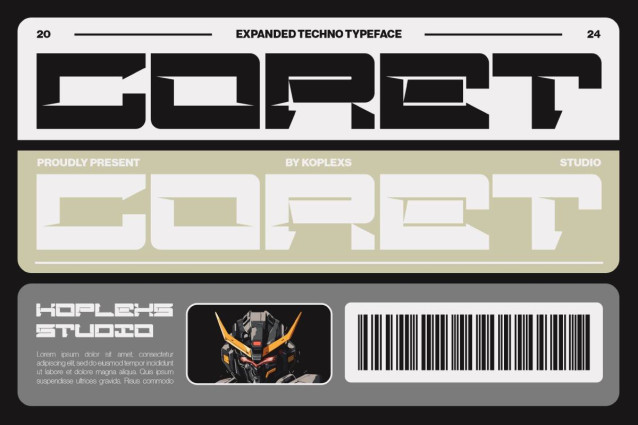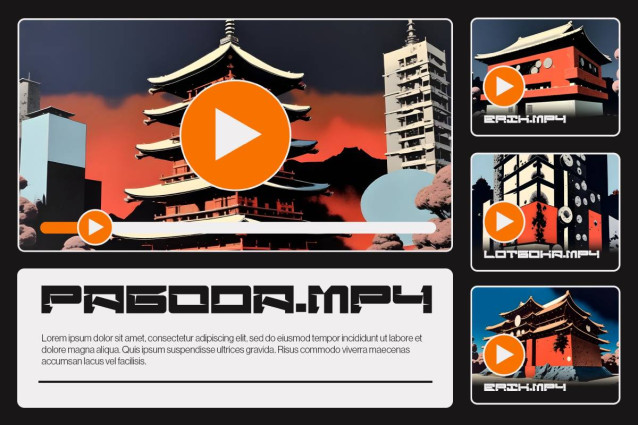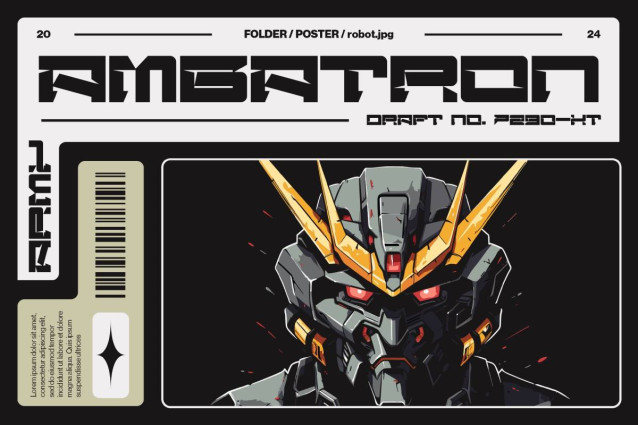
CORET FONT
Coret Font is a bold futuristic display typeface created by Koplexs Studio, designed to capture the spirit of modern technology and cyberpunk aesthetics. With sharp geometric forms and precise edges, this tech font brings a sleek, high-tech vibe to any project. It’s ideal for those who love sci-fi design, gaming culture, and futuristic visual storytelling, delivering the perfect balance between innovation and readability.
Engineered for versatility, Coret Font fits seamlessly into a wide range of creative work. From game titles, logos, and app interfaces to headlines, branding, and digital art, this cyberpunk sans serif font adapts beautifully across media. Its expanded structure and bold weight make it a top choice for modern tech brands seeking strong visual impact. Coret Font is available for instant digital download in multiple licenses to suit personal, commercial, and corporate needs.